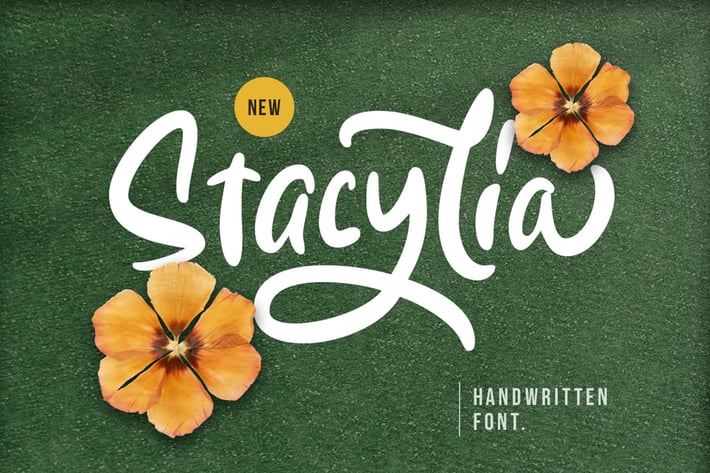
Stacylia - Handwritten Font
Introducing, Stacylia - a bold handwritten script typeface. This type of font perfectly made to be applied especially in logo, and the other various formal forms such as invitations, labels, logos, magazines, books, greeting / wedding cards, packaging, fashion, make up, stationery, novels, labels or any type of advertising purpose.
+uppercase & lowercase
+numbers and punctuation
+multilingual
+alternates and ligatures